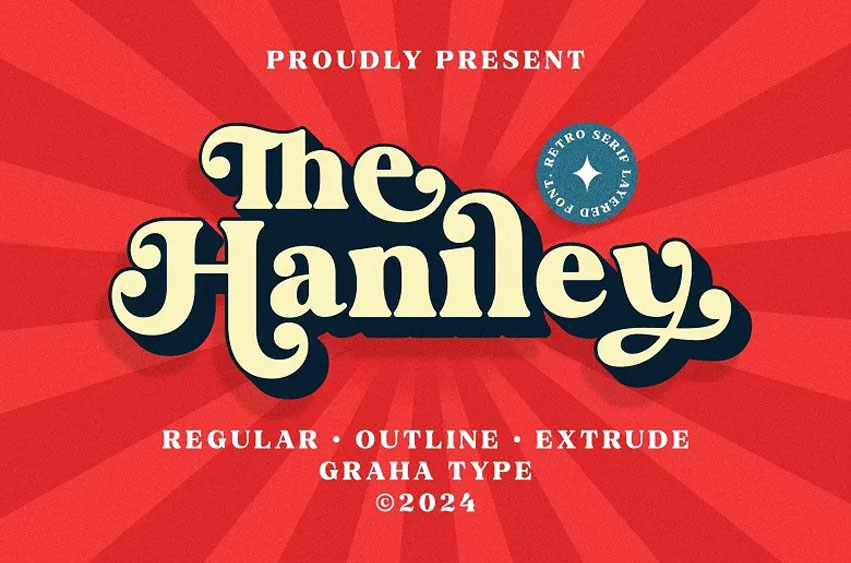
The Haniley Font is a modern serif font with retro style feel and look to it. This is great for logo, poster, branding, merchandise. This font will surely make your design stand out and therefore it is perfect for use in creating your designs.
Whether it is a brand or a special assignment that you are developing, The Haniley will give your work that sophisticated and classic appeal.